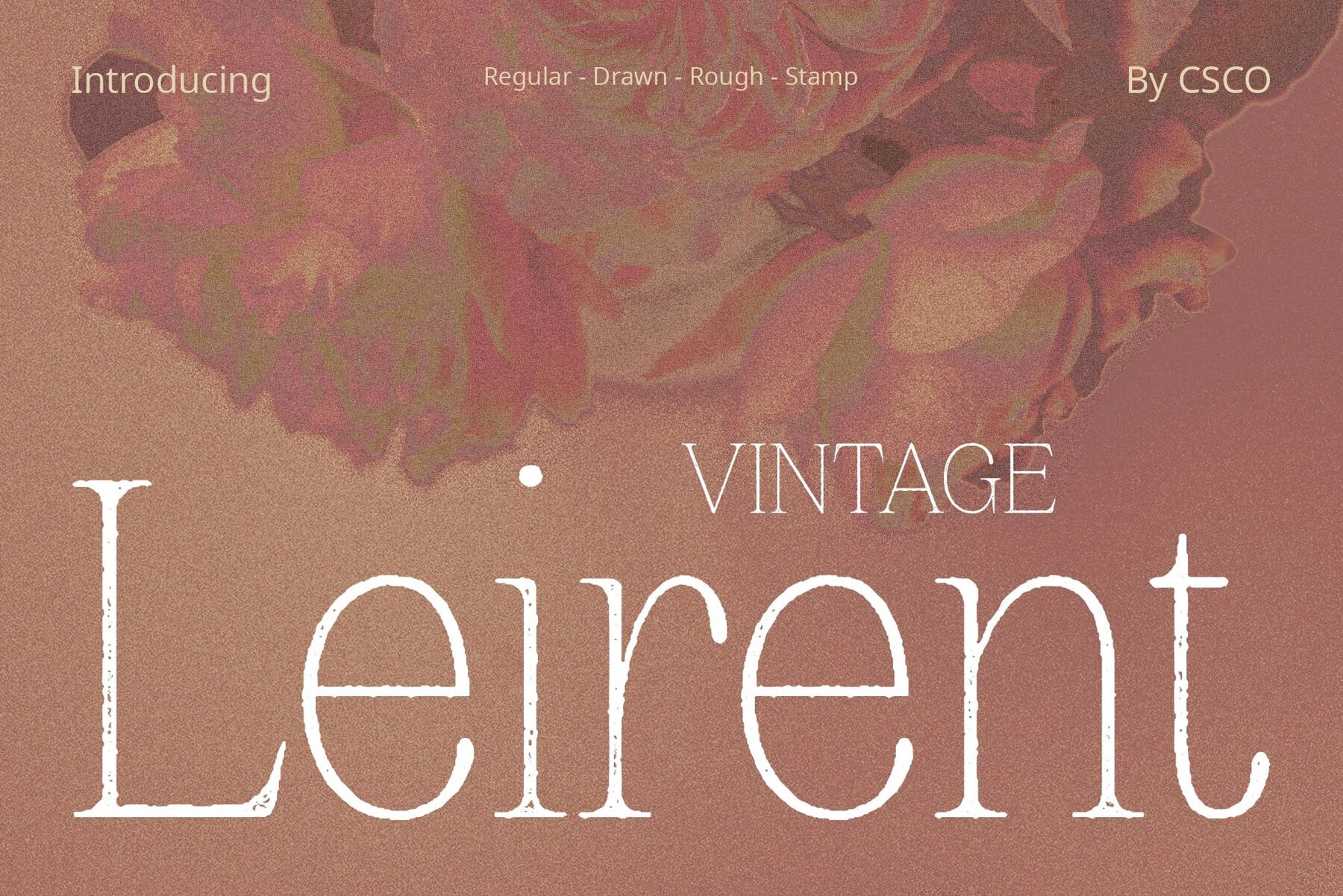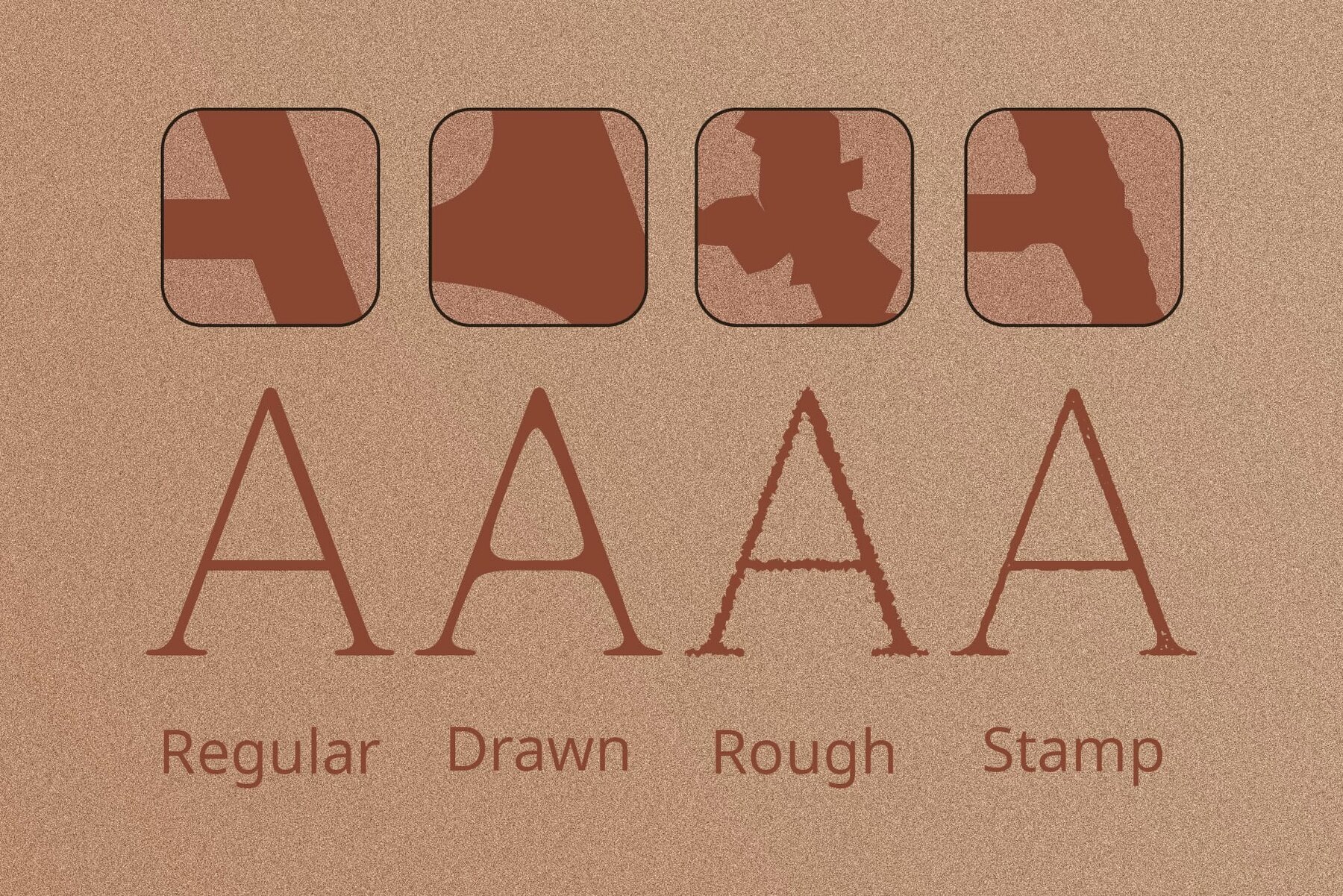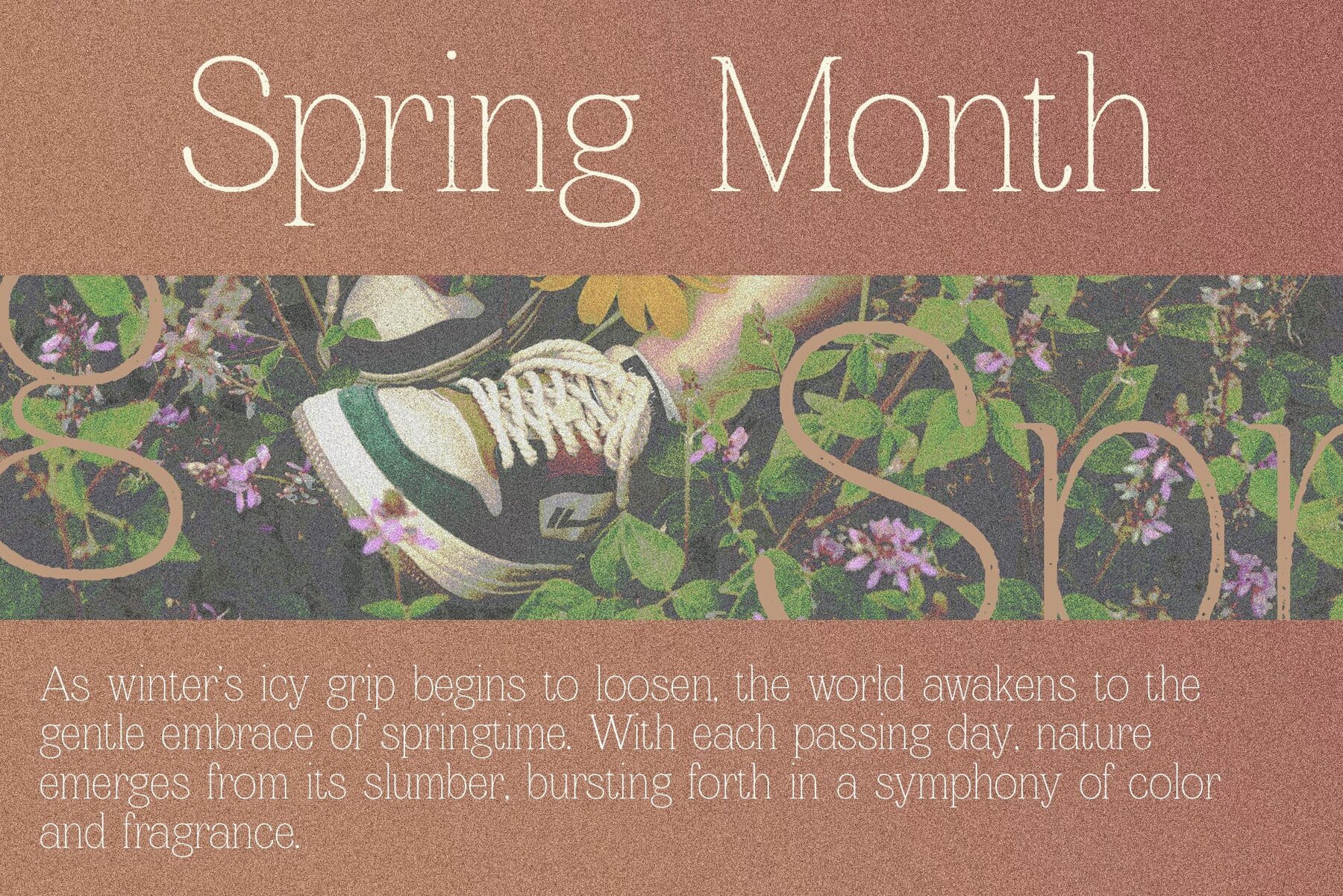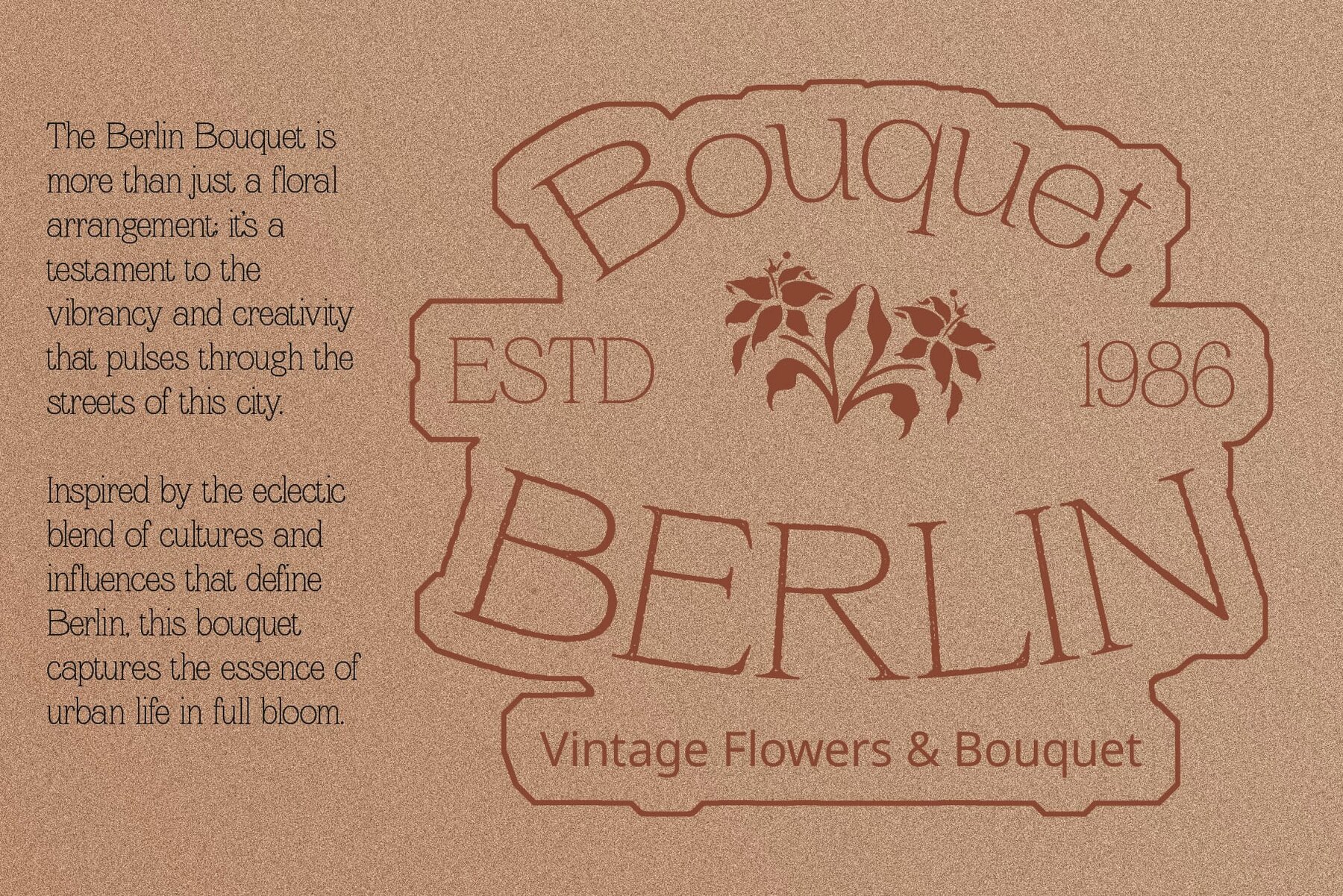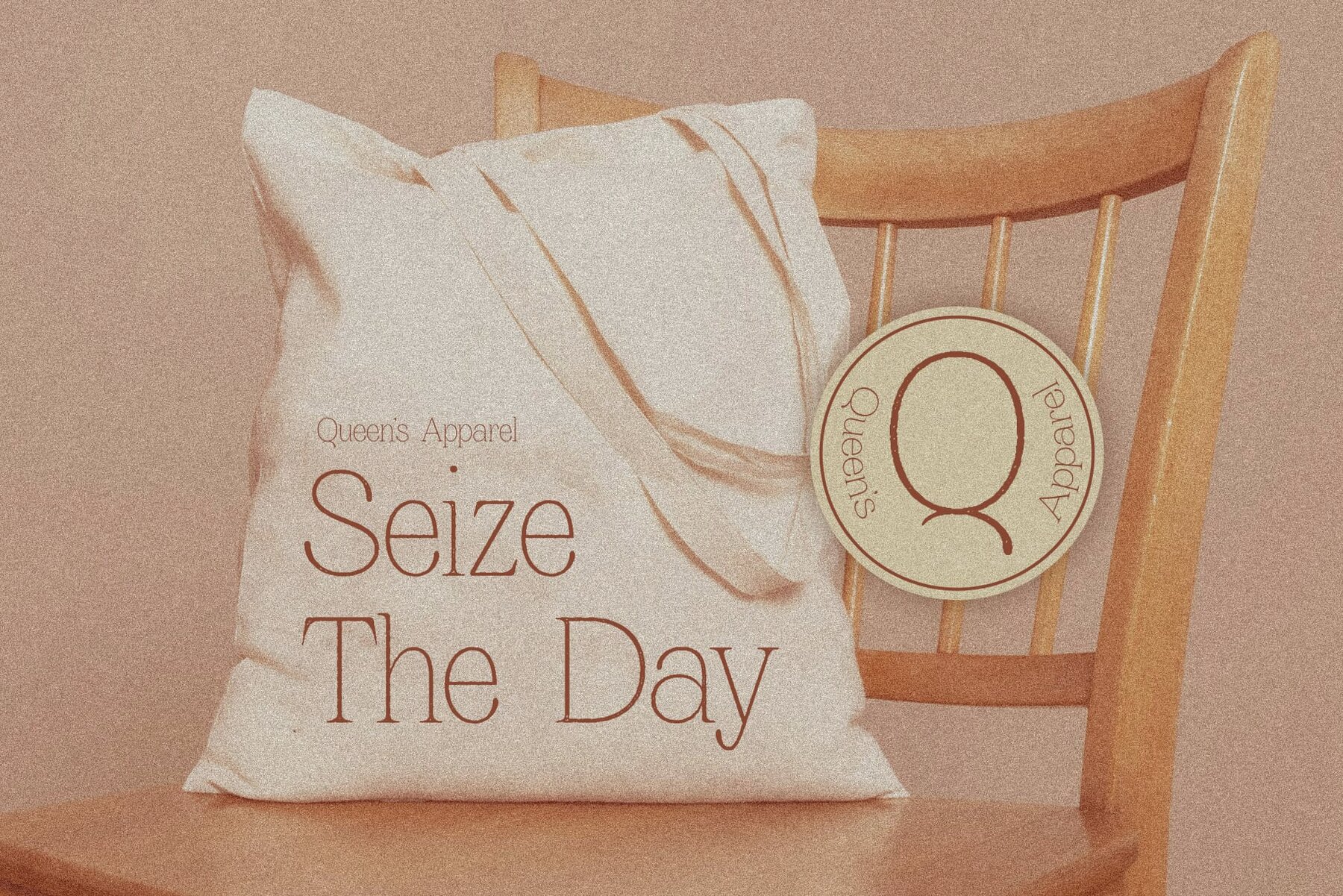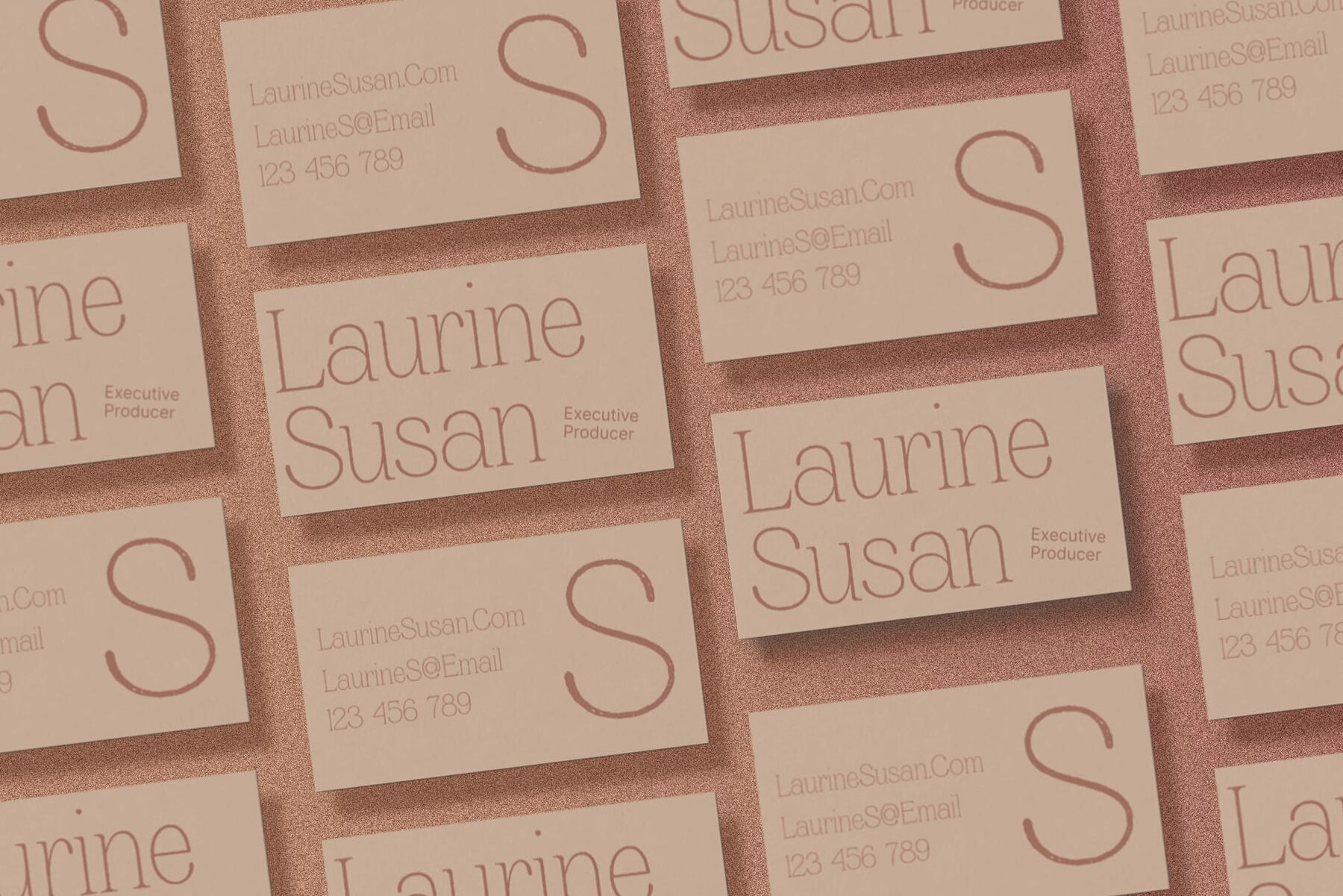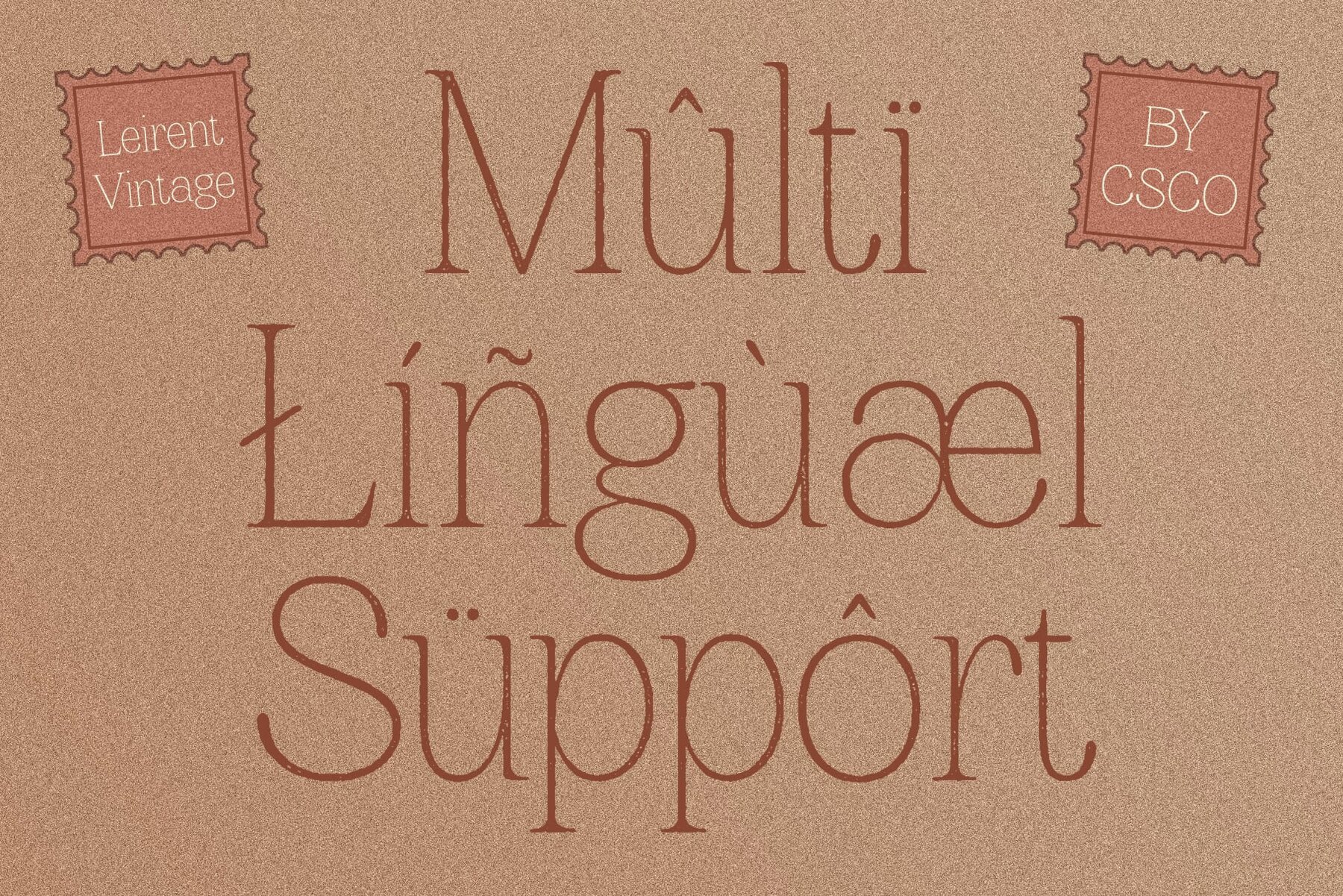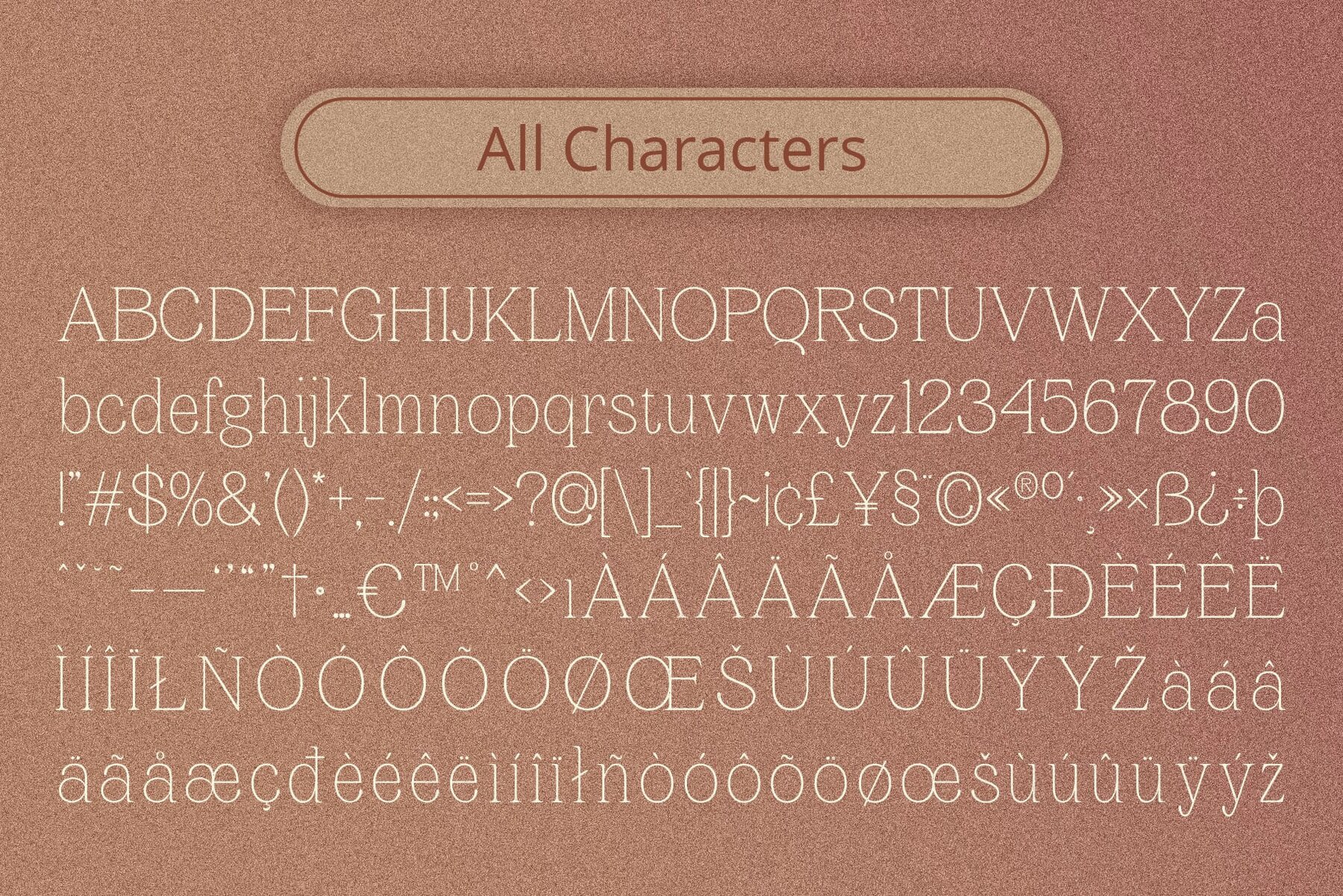
Leirent Vintage Font
Leirent Vintage embodies the quintessence of classic serif typography, delivering a refined structure perfectly suited to a variety of display projects. This font infuses any design with a touch of sophistication, making it a timeless choice for enhancing visual appeal. No specialized software is needed to utilize this typeface.Leirent Vintage: Classic Serif with a Rough Stamp Effect
Key Design Features